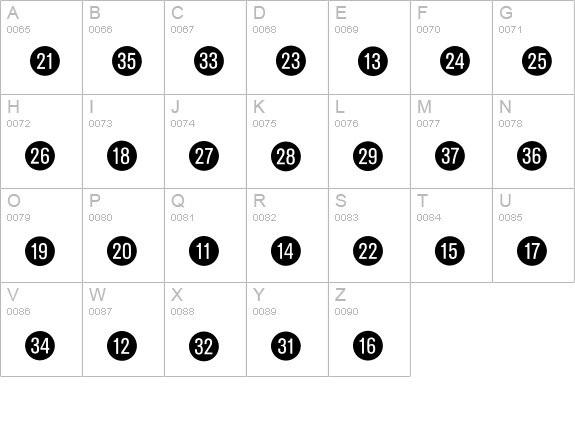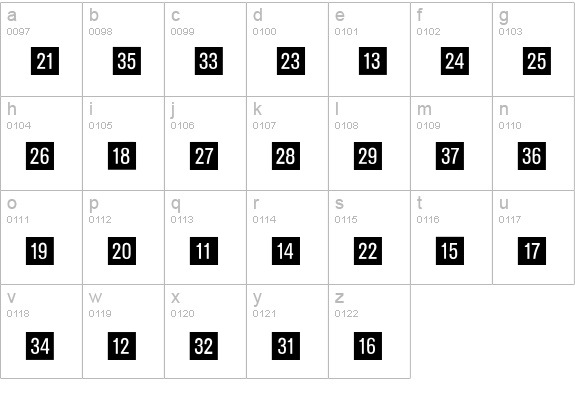
Katalogziffern Negativ Font Details
Katalogziffern Negativ font is a stunning display typeface that exudes elegance and sophistication. Its sleek and modern design makes it perfect for a wide range of creative projects, from branding and advertising to editorial and packaging. The font features unique negative space within each character, creating a captivating visual impact. What sets Katalogziffern Negativ font apart is not only its exquisite design, but also its availability as a free download. Yes, you read that right! This exceptional font is freely available to download at FontsMarket.com, making it accessible to designers and enthusiasts alike. With its bold and distinct letterforms, Katalogziffern Negativ font is bound to draw attention and make a lasting impression. Whether you're designing a logo for a luxury brand or creating eye-catching headlines, this font will elevate your designs to new heights. The versatility of Katalogziffern Negativ font knows no bounds. Its clean lines and balanced proportions make it suitable for both large-scale designs and smaller text applications. From posters and banners to business cards and invitations, this font will add a touch of sophistication to any project. Don't miss out on the opportunity to enhance your design arsenal with the Katalogziffern Negativ font. Visit FontsMarket.com today to download this remarkable font for free and unlock its full potential. Elevate your designs and leave a lasting impression with Katalogziffern Negativ font.